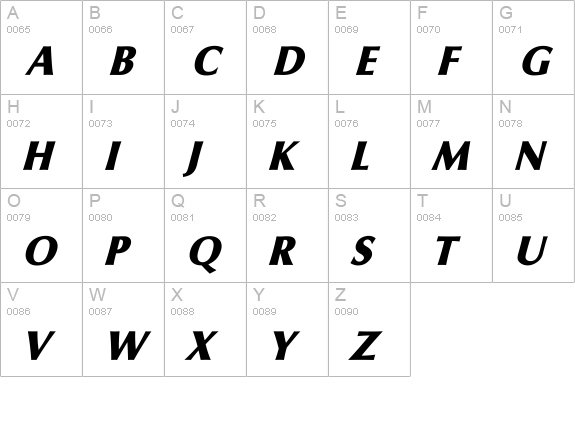
Icoluku ExtraBold is an extra-heavy, attention-grabbing variant in the Icoluku typeface family \xE2\x80\x94 well suited to high-impact headlines, posters, and bold branding.
Introducing Icoluku ExtraBold, a stunning typeface that effortlessly captivates with its bold and impactful presence. This font is the epitome of modernity and confidence, perfect for those seeking to make a bold statement with their designs. With its strong and solid letterforms, Icoluku ExtraBold commands attention and demands to be noticed. Each character is meticulously crafted, ensuring a harmonious balance between legibility and visual appeal. From headlines to logos, posters to packaging, this font is versatile and adaptable to a wide range of design projects. One of the most remarkable aspects of Icoluku ExtraBold is that it is freely available to download at FontsMarket.com. This means that designers and creatives can readily access and utilize this exceptional typeface without any restrictions or limitations. From students and freelancers to established professionals, everyone can benefit from the power and elegance that Icoluku ExtraBold brings to their designs. The versatility of Icoluku ExtraBold extends beyond its aesthetic appeal. It is optimized for various digital and print mediums, ensuring seamless integration and compatibility across different platforms. Whether it's used for web design, branding, or print materials, Icoluku ExtraBold maintains its integrity and clarity, ensuring a consistent and impactful visual experience for the audience. In addition to its bold and captivating presence, Icoluku ExtraBold also offers a wide range of weights and styles, providing even more creative flexibility and possibilities. From the standard ExtraBold weight to its variations, this font allows designers to experiment and explore different typographic treatments, further enhancing the uniqueness and individuality of their designs. Icoluku ExtraBold is not just a font; it is a tool that empowers designers to express their creativity with confidence. Its free availability at FontsMarket.com makes it accessible to everyone, regardless of their budget or design aspirations. So why wait? Download Icoluku ExtraBold today and unleash the full potential of your designs. Let your creativity soar with this extraordinary typeface that combines boldness, elegance, and the freedom to create.